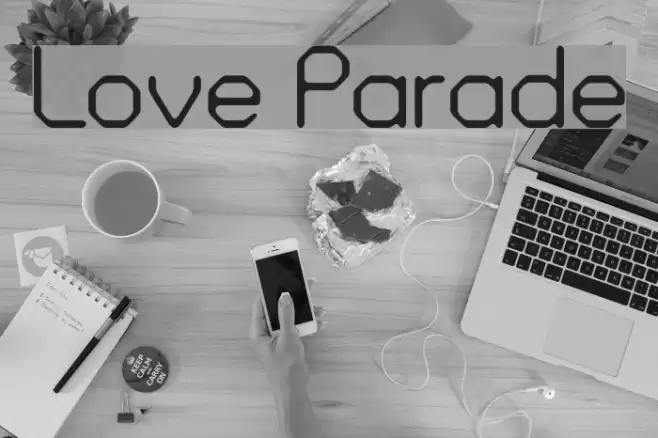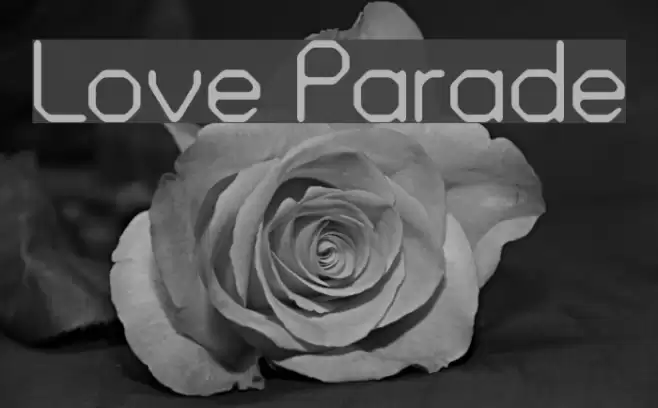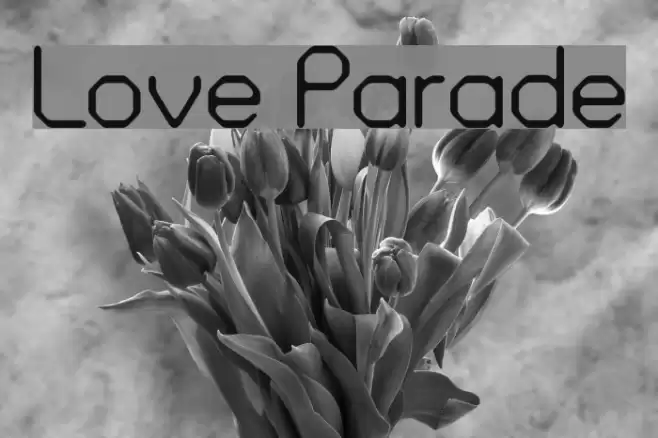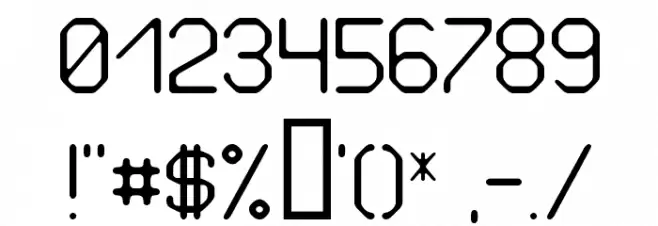
Love Parade Font
Love Parade Description
This font features a modern, geometric design with rounded edges and a clean, minimalistic appearance. The characters are uniform in width, creating a balanced and harmonious look. The uppercase and lowercase letters maintain a consistent style, with slight variations in height and width to distinguish them. The numbers and special characters follow the same geometric theme, ensuring a cohesive appearance across all glyphs. The font's open and airy design makes it highly legible, even at smaller sizes, while its unique style adds a touch of personality to any project.
A modern, geometric font with rounded edges and a clean, minimalistic design from Formal fonts.
- Proposed Projects: Ideal for tech branding, modern advertising, digital interfaces, and minimalist design projects.
- Use Case: Headlines, Logos, Digital Interfaces